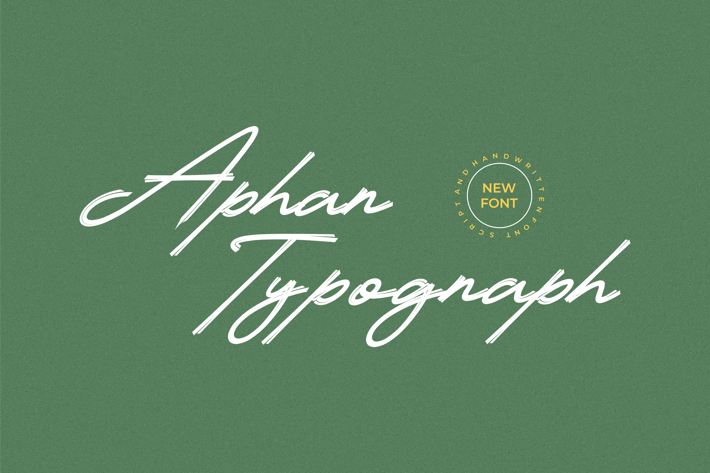
Aphan Typograph - A Handwritten Logo Font
Presenting Aphan Typograph Is A Handwritten Font.
Can Make It Easier To Convey The Message In Your Design. Font Is Suitable For Logo, Labels, Badge, Branding, Magazine, Poster, Title, Gigs, Covers And Etc. Our Fonts Have Uppercase & Lowercase, Numeral & Punctuation, And Opentype Features. For Amazing Designs You Can Mix With Other Fonts As A Complement.